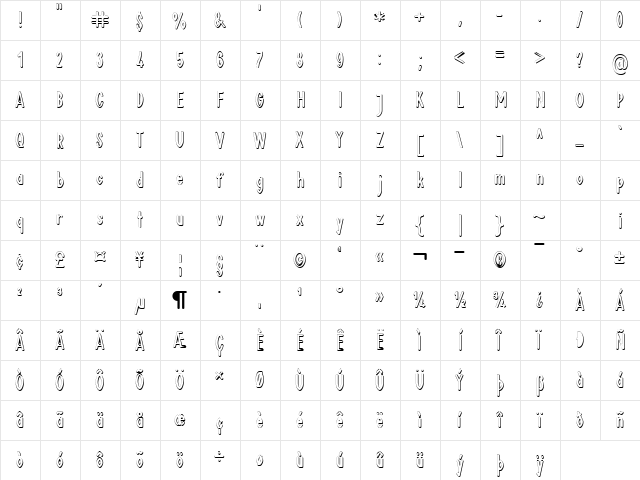
Plakat_1 Shadow DB Normal
Design Context for Plakat_1 Shadow DB Typeface
Plakat_1 Shadow DB brings ornamental detail and strong personality to headlines and identities, where visual impact matters more than quiet functionality.
Font Pairing: Pair with a clean neutral sans-serif for body copy to let Plakat_1 Shadow DB's character lead without overwhelming the composition.
Pro Tip: Treat Plakat_1 Shadow DB as the centrepiece of your typographic hierarchy. One strong heading set in a decorative face can carry an entire layout.